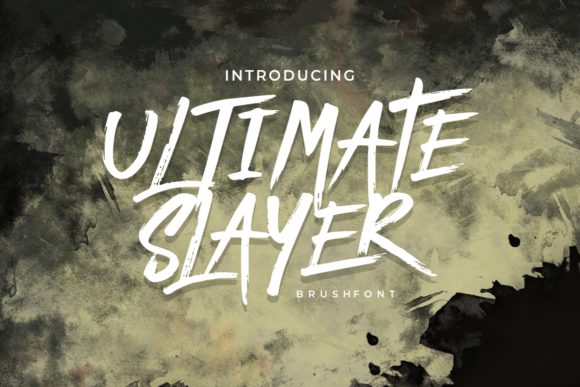
Ultimate Slayer Font for Handmade Products and Displays
As a fellow crafter and small business owner, I know the struggle of finding that perfect typeface which balances artistic flair with commercial viability. Ultimate Slayer is a stunning and natural display font with a powerful vibe that immediately caught my eye for physical product creation. When we are designing for tangible items like packaging, signage, or apparel, the typography must do more than just look pretty on a screen; it needs to translate beautifully into vinyl cuts, printed ink, and embroidered threads. This specific typeface offers that rare combination of organic elegance and bold presence, making it an invaluable asset for Etsy sellers, printable creators, and handmade artisans who need their work to stand out in a crowded marketplace.
Using Ultimate Slayer Display Font for Product Packaging and Labels
When designing physical goods, Ultimate Slayer serves as an exceptional anchor for product packaging and labels because its natural aesthetic communicates quality and craftsmanship. In the world of handmade soaps, candles, and boutique skincare, customers often equate visual presentation with product integrity, and this display font delivers that perception instantly. The letterforms possess enough weight to remain legible when scaled down for 2x2 inch jar labels or cosmetic boxes, yet they retain a distinctive character that prevents your branding from looking generic. For crafters using Cricut or Silhouette machines to create custom die-cut labels, the sturdy construction of these glyphs ensures clean weed lines and reduces the risk of tearing during application. Whether you are creating a rustic tag for a knitted scarf or a sleek sticker for a coffee bag, the powerful vibe of this font adds a layer of perceived value that justifies premium pricing for your handmade goods.
Ultimate Slayer Fonts for Wedding Signage and Invitation Suites
Crafters specializing in paper goods will find that Ultimate Slayer fonts provide the ideal tone for modern wedding stationery and large-format event signage. Unlike overly frilly scripts that can become illegible at a distance, this display typeface strikes a balance between romantic softness and structural clarity, which is essential for welcome boards, seating charts, and table numbers. When cutting this font from adhesive vinyl for acrylic signs or painting it onto reclaimed wood, the natural flow of the characters guides the eye without sacrificing readability for guests. It works particularly well for couples seeking a "modern organic" or "earthy luxury" theme, as the letterforms feel handcrafted rather than digitally manufactured. For invitation suites, using this font for the couple’s names or the date creates a strong visual hierarchy, allowing you to pair it with simpler body text while ensuring the most critical information captures attention first.
Creating Sellable Printables and Digital Downloads with Ultimate Slayer
Digital product creators can leverage Ultimate Slayer to design high-converting printables and wall art templates that appeal to buyers looking for unique home decor. In the competitive digital download market, your thumbnail image is everything, and the powerful vibe of this display font helps stop the scroll on platforms like Etsy or Creative Market. Because the letterforms have a natural, almost tactile quality, they render beautifully in mockups, helping potential customers visualize how the art will look in their own homes. This typeface is versatile enough for motivational quotes, nursery name prints, and seasonal calendars, providing a cohesive style across different product listings in your shop. Furthermore, when designing editable Canva or Corjl templates for clients, choosing a font with such distinct personality allows you to charge more for your designs, as the typography itself becomes a key selling point of the template.
Font Pairing Strategies for Ultimate Slayer in Commercial Design
To maximize the impact of Ultimate Slayer in commercial design projects, it is crucial to pair this expressive display font with complementary typefaces that enhance rather than compete with its natural character. Since this font carries a powerful vibe and significant visual weight, it performs best when anchored by a clean, minimalist sans serif or a classic, understated serif font for secondary information. For example, if you are designing a tote bag where "Ultimate Slayer" is used for the main slogan, use a simple geometric sans serif for the website URL or care instructions to maintain balance and ensure quick readability. Avoid pairing it with other highly decorative or script fonts, as this can create visual clutter and reduce the professional polish of your final product. This strategic contrast not only improves the aesthetic appeal but also ensures that your designs meet accessibility standards for legibility, which is increasingly important for both physical signs and digital graphics.
Technical Considerations for Cutting Machines and Small Formats
For makers utilizing vinyl cutters and laser engravers, understanding the technical behavior of Ultimate Slayer is vital for successful production runs on small formats and intricate designs. While this display font is visually stunning, always test cut a single letter at your intended size before committing to a full batch of stickers or decals to ensure the natural curves do not result in fragile points that lift over time. If you are working with glitter HTV or flocked vinyl, you may need to slightly increase the letter spacing or use a bolder weight variation to accommodate the material's thickness and prevent internal details from filling in. For laser-engraved wooden signs, this font’s organic lines burn beautifully, but be mindful of dwell time on thinner strokes to avoid scorching. These practical adjustments ensure that the beauty of the typeface translates flawlessly into durable, sellable merchandise that withstands handling and washing.